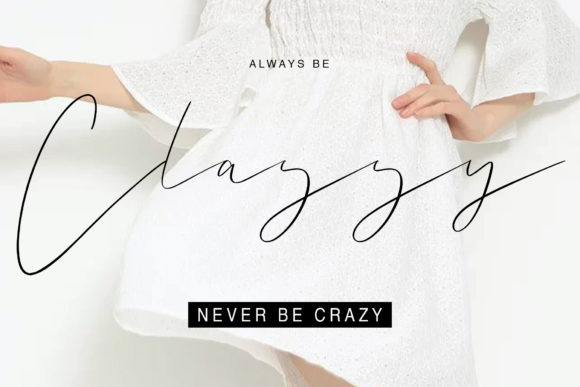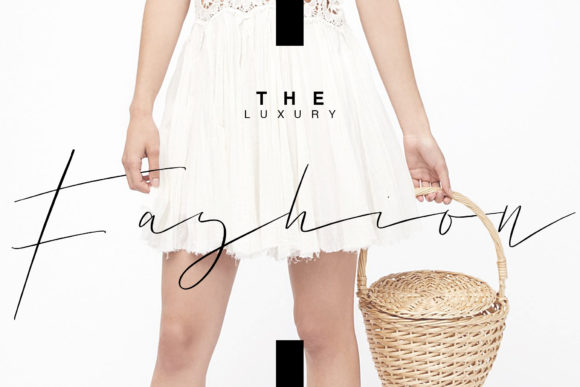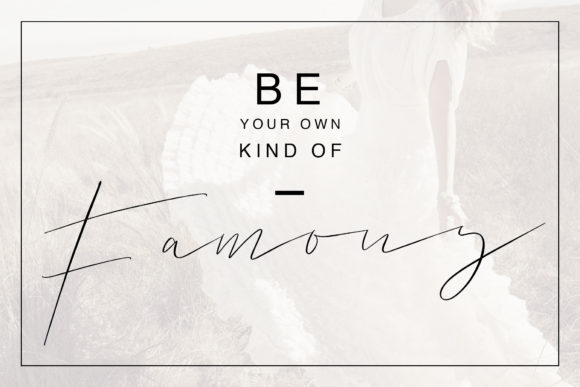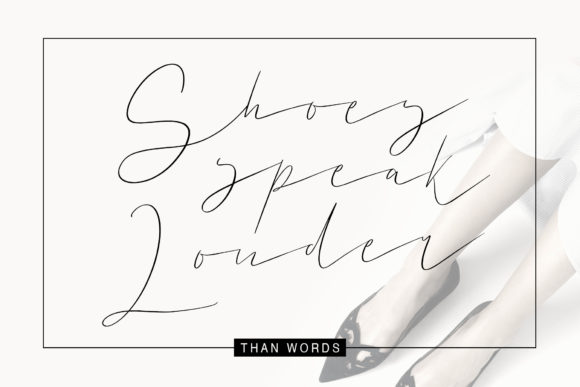
Introduction to Klast Font
Klast is a flowing script font.
It will complement any design need perfectly with its perfectly balanced mix of the smooth and sharp .
Klast Font offers exceptional quality and versatility, making it a valuable addition to your design toolkit. Whether you’re creating for personal projects or commercial use, Klast Font delivers professional results.